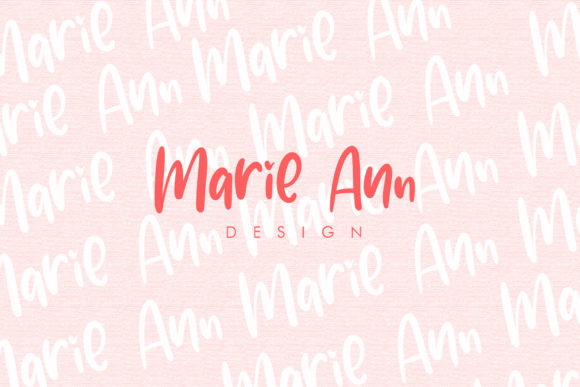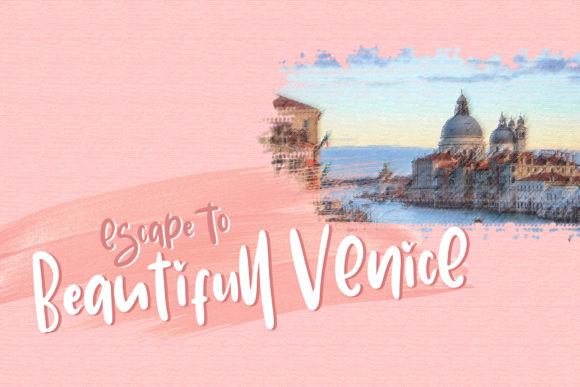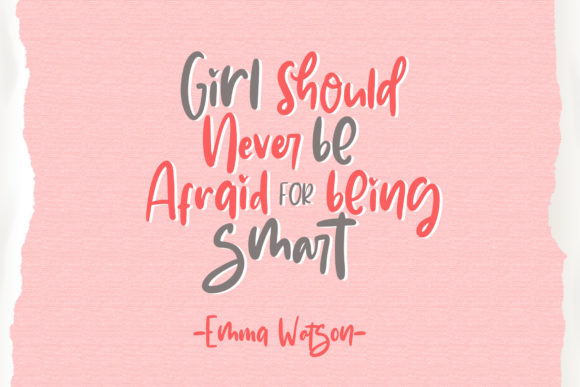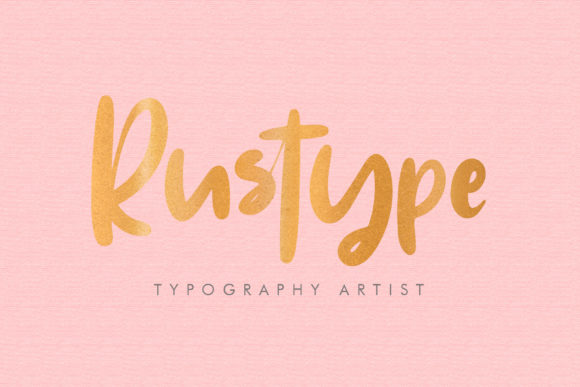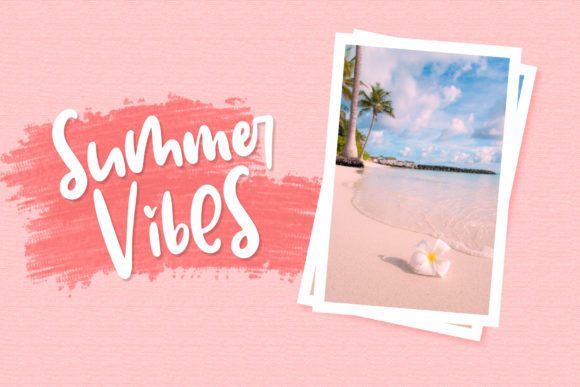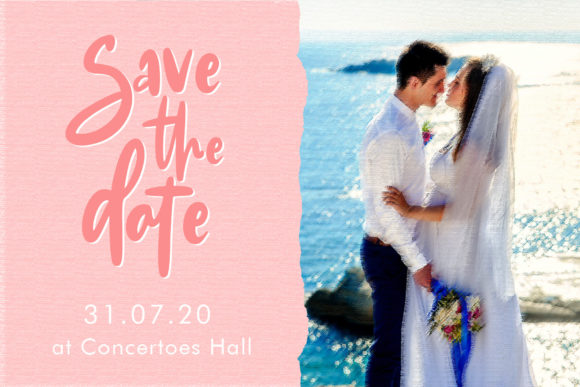
Introduction to Ruthyne Font
Ruthyne is a beautiful, casual, and chic handwritten script font great for modern branding.
Get inspired by its exciting irregular style .
Key Features of Ruthyne Font
Why Choose Ruthyne Font?